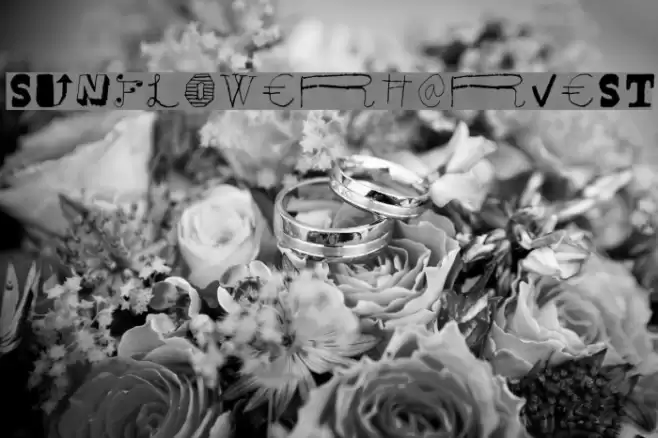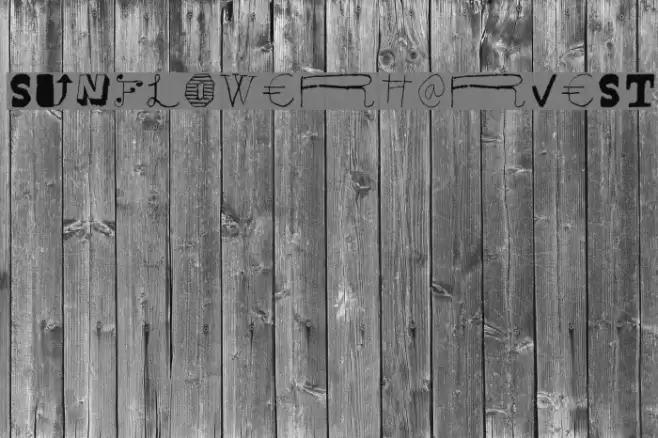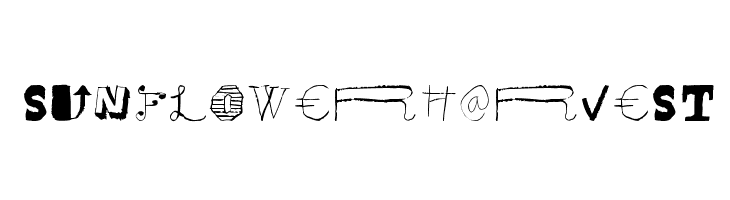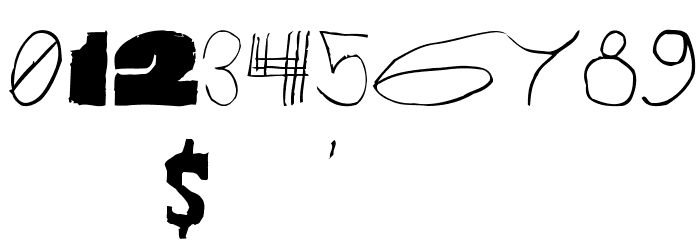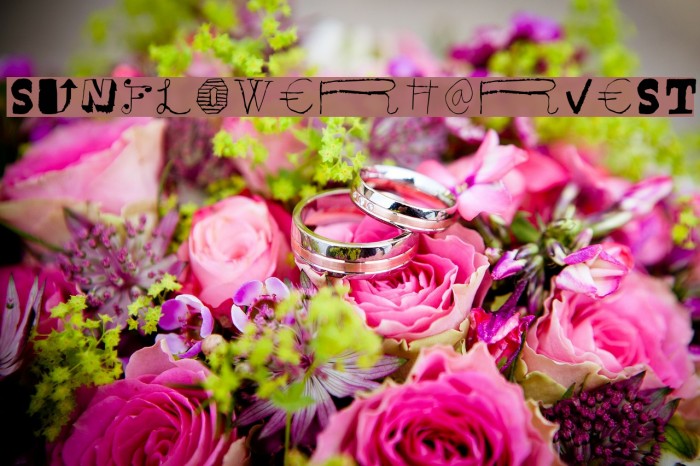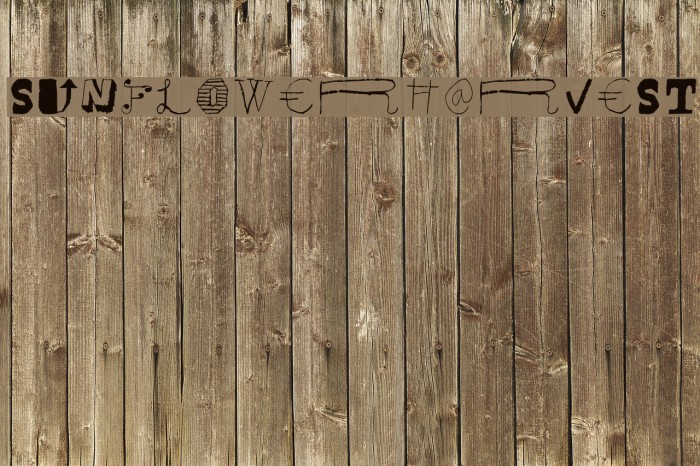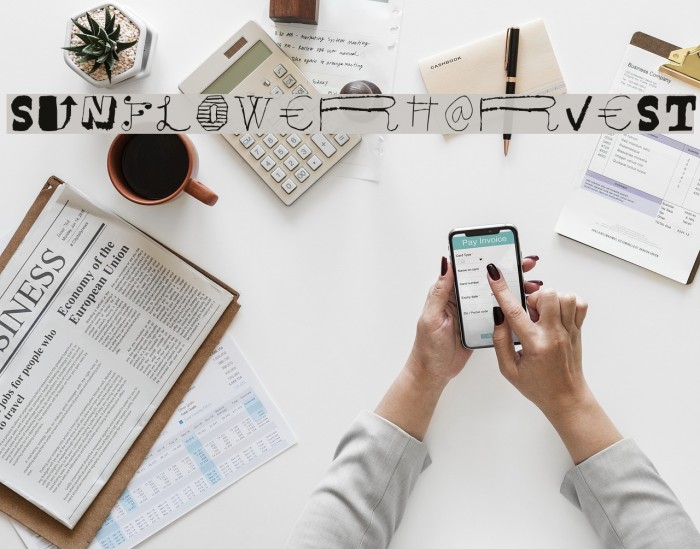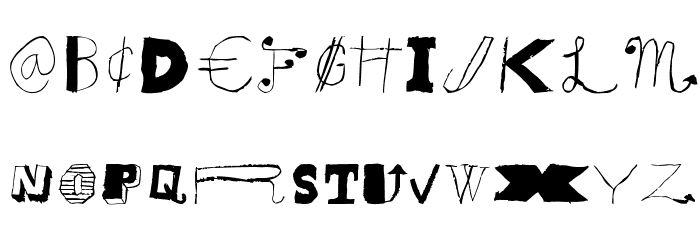
SunflowerHarvest Font
SunflowerHarvest Description
This font features a highly decorative and eclectic style, combining elements of both modern and vintage aesthetics. Each character is uniquely designed with varying stroke thicknesses and intricate details, creating a playful yet sophisticated appearance. The uppercase letters are bold and artistic, with some incorporating abstract shapes and lines. The lowercase letters maintain a similar artistic flair, offering a cohesive look across the alphabet. Numbers and special characters are equally distinctive, with some characters appearing more abstract and others more straightforward. This font's unique design makes it stand out, perfect for creative and eye-catching projects.
A decorative and eclectic font with unique, artistic characters from Uncategorized fonts.
- Proposed Projects: Ideal for creative projects such as posters, album covers, branding, and artistic invitations.